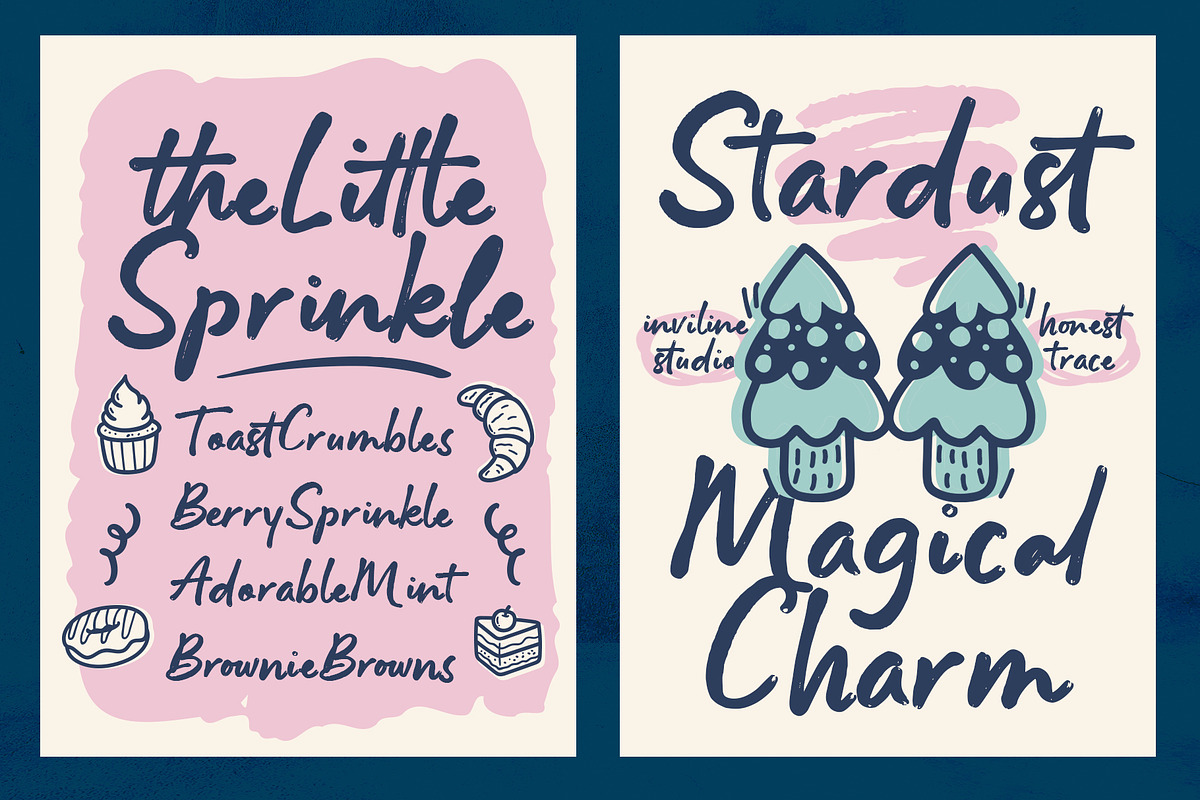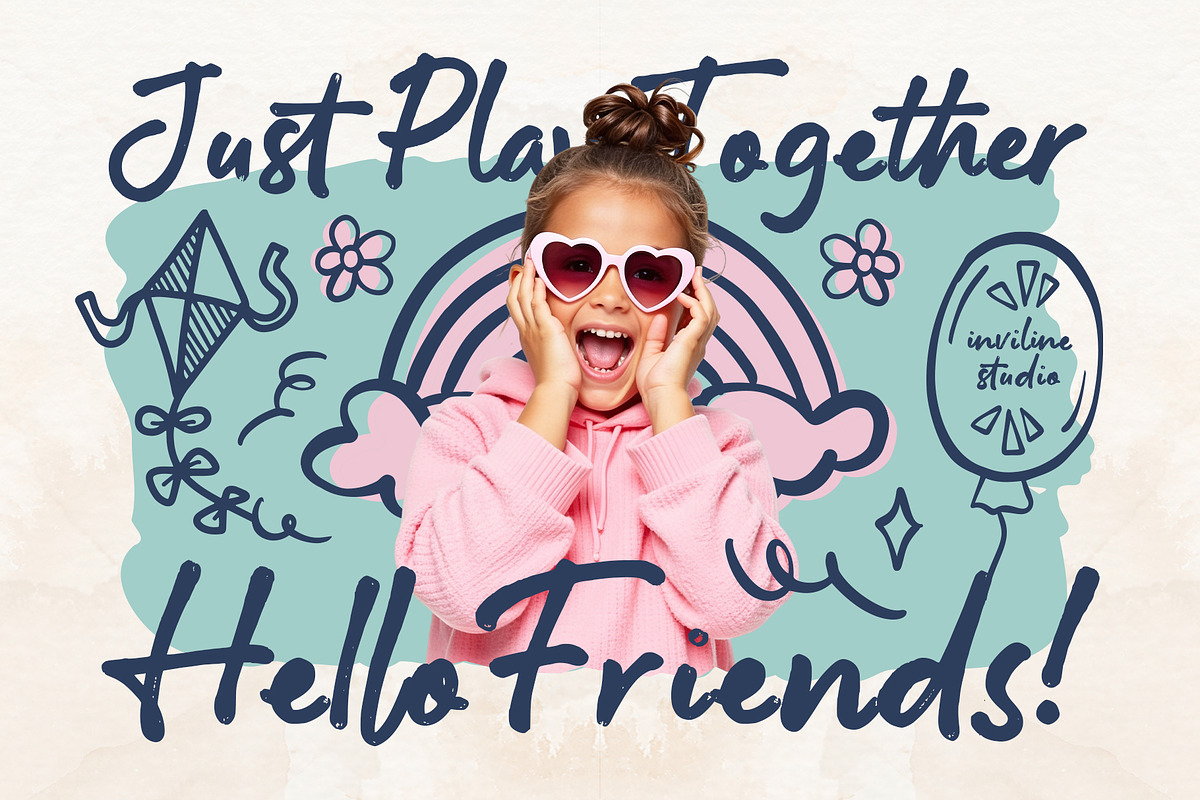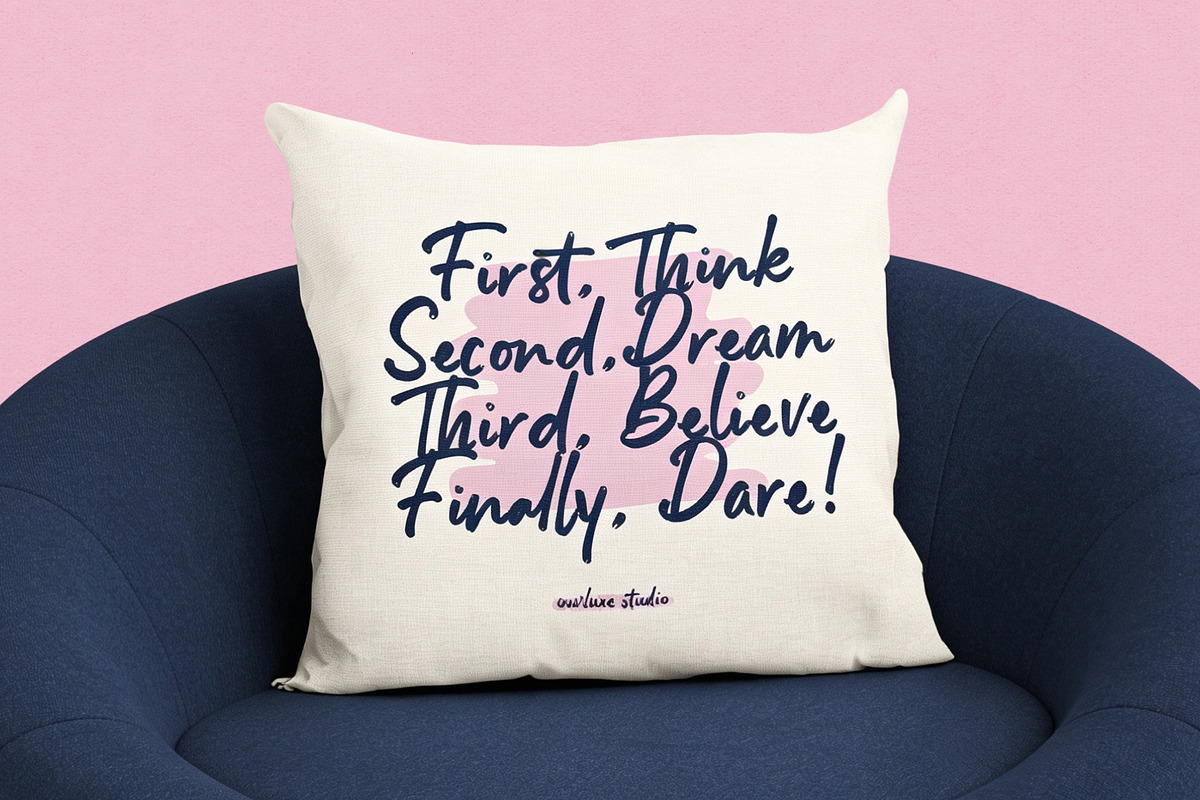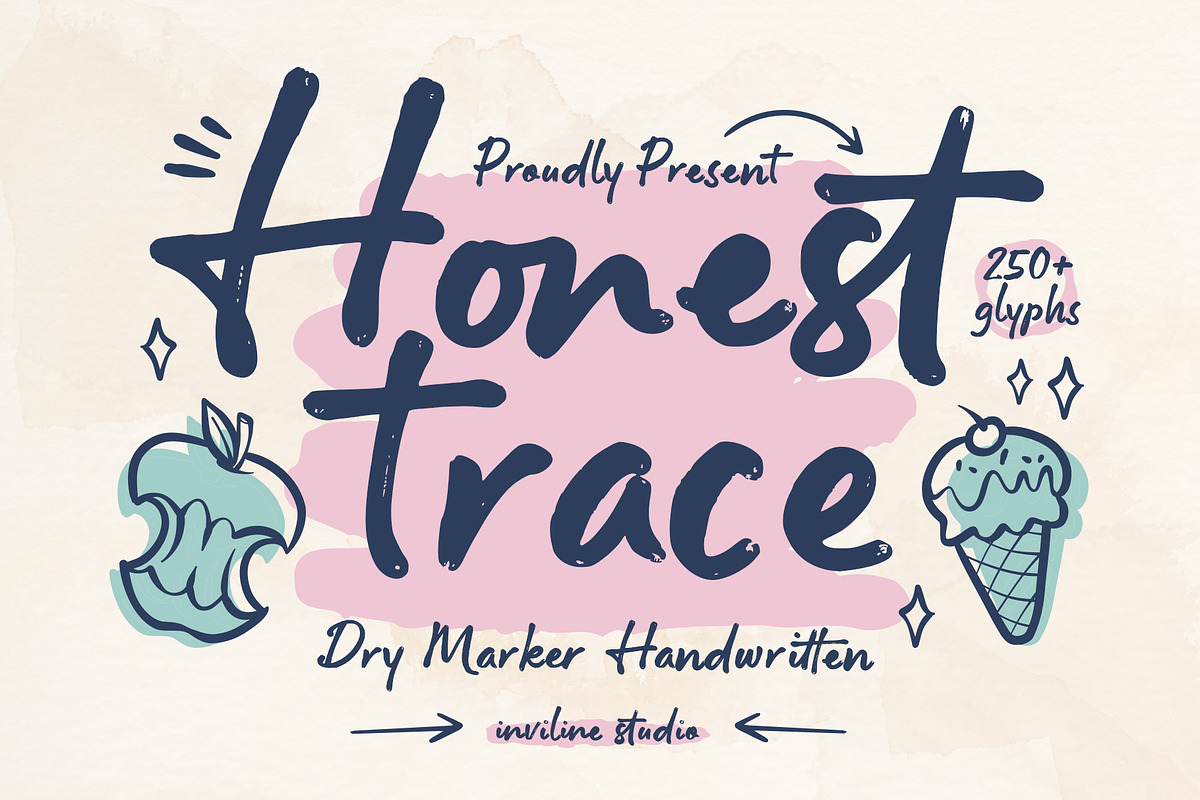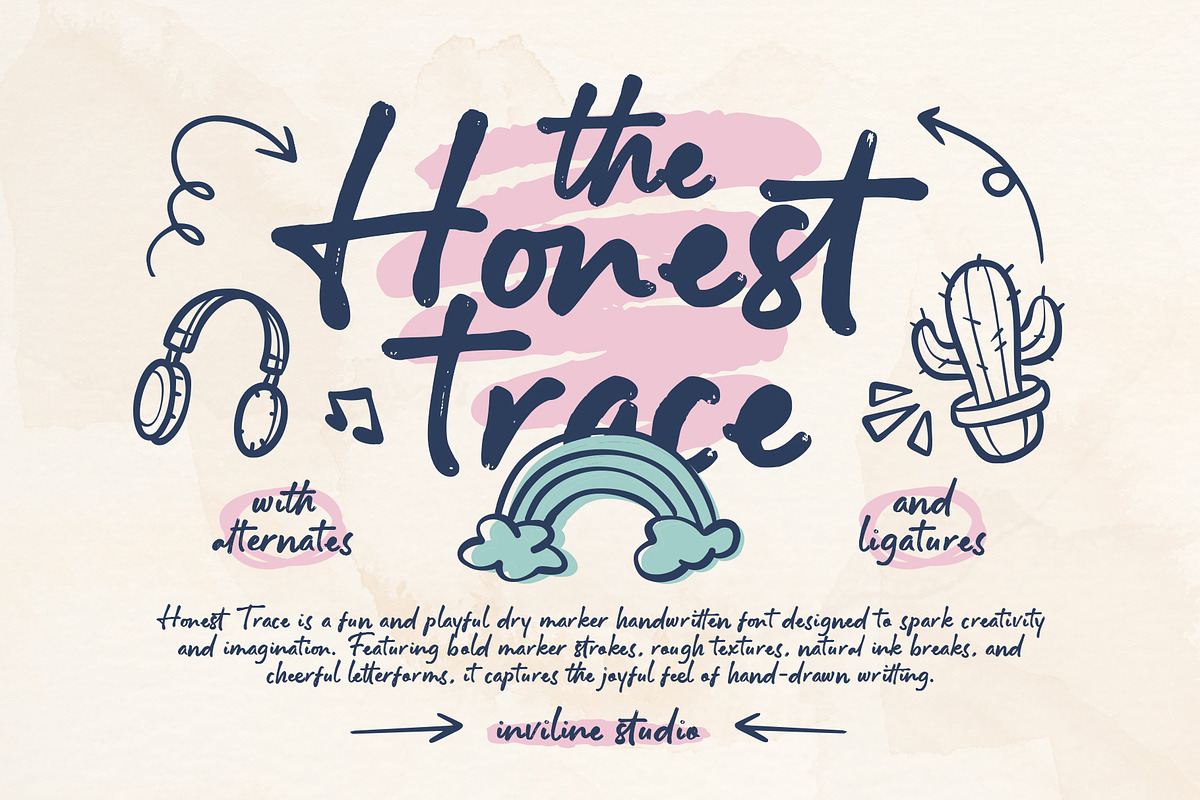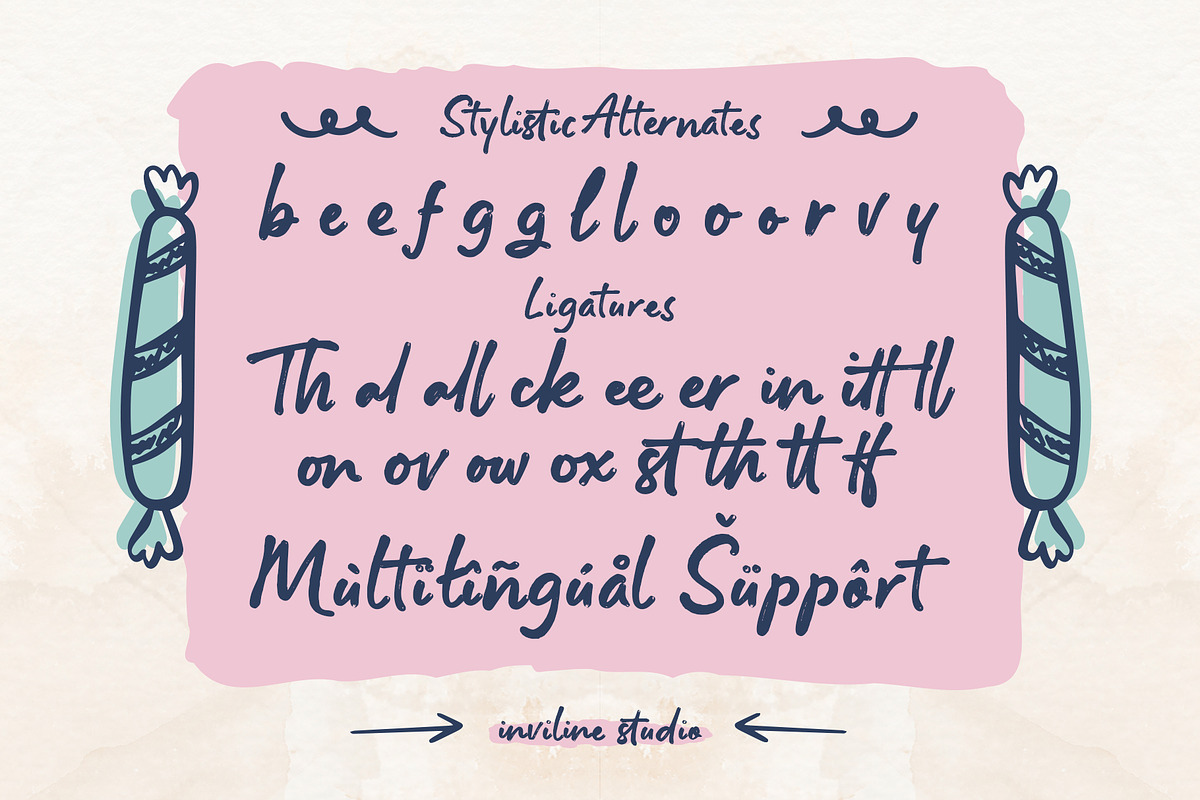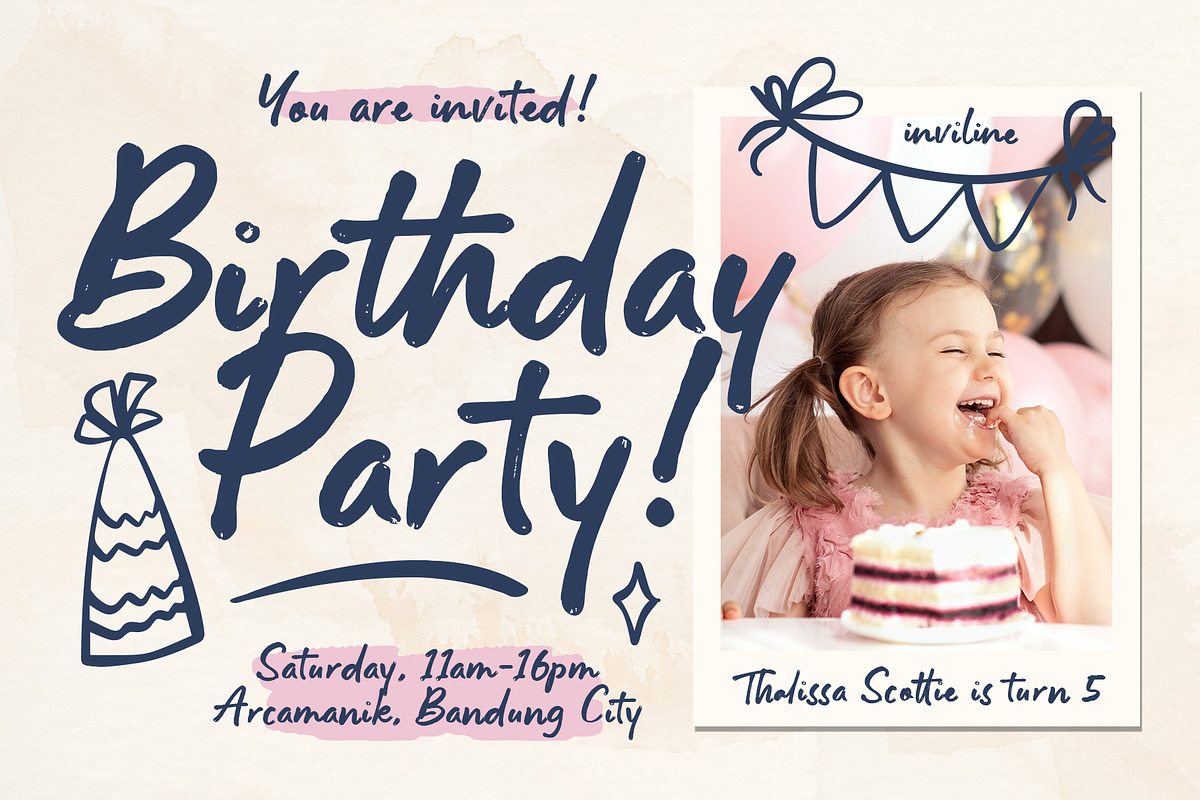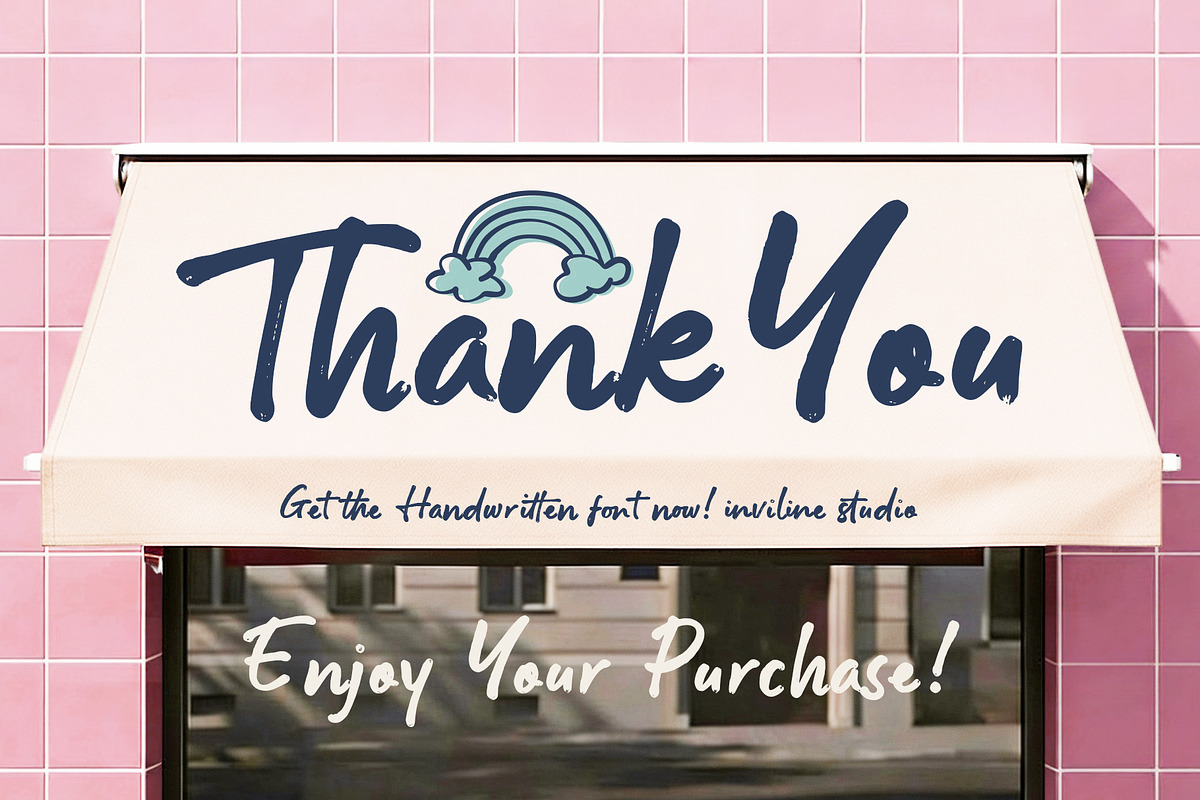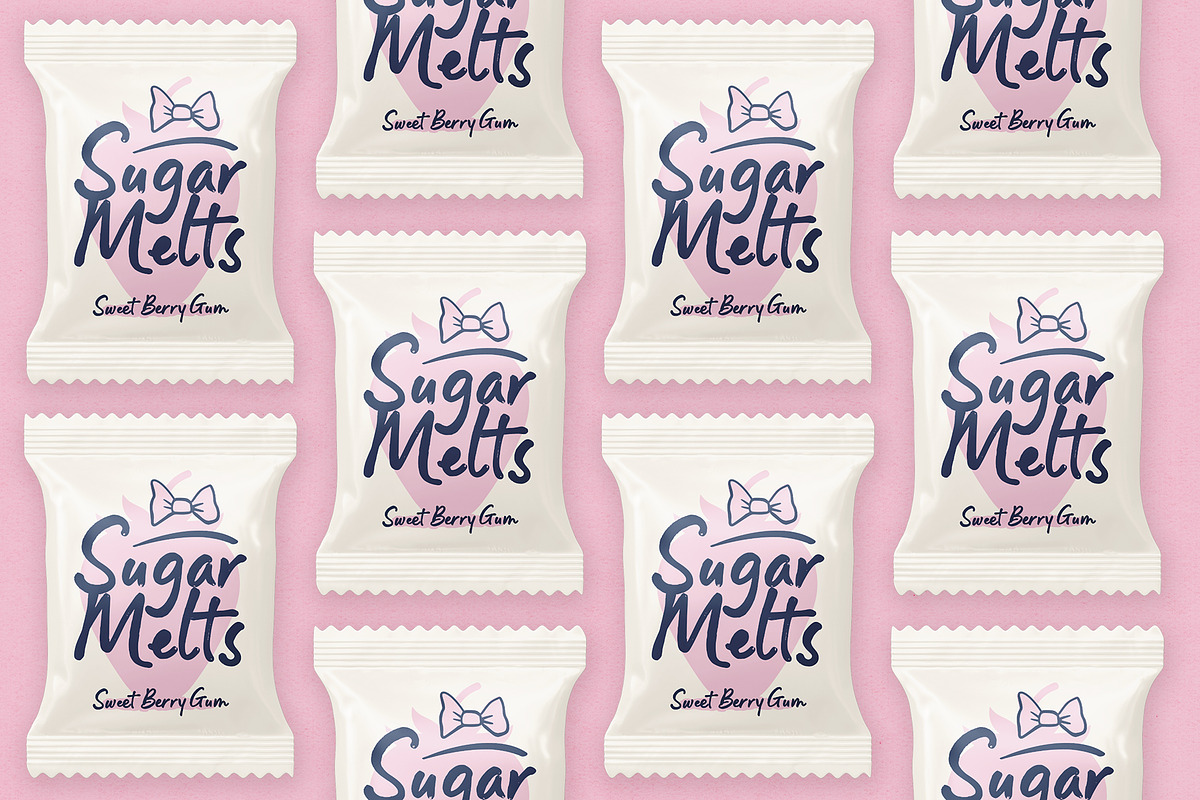
Honest Trace - Organic Script Font
Honest Trace — Playful Dry Marker Script Font
Honest Trace is a bold handwritten script with expressive dry-marker strokes, natural imperfections, and a playful handmade personality. Its friendly character adds warmth and spontaneity to every design.
Perfect for branding, packaging, posters, invitations, stickers, merchandise, food projects, and social media graphics.
Bold dry-marker handwritten style
Organic & handmade character
250+ glyphs
Uppercase & lowercase
Natural textured strokes
Great for logos, headlines & short phrases
Ideal For
Food & café branding
Bakery & packaging
Kids & party designs
Stickers & merchandise
Greeting cards
Posters & social media
Handmade product branding
Lifestyle projects
Design Tips
Use Honest Trace at medium to large sizes to highlight its bold marker texture. Pair it with a clean sans serif or simple serif for a playful yet balanced look.